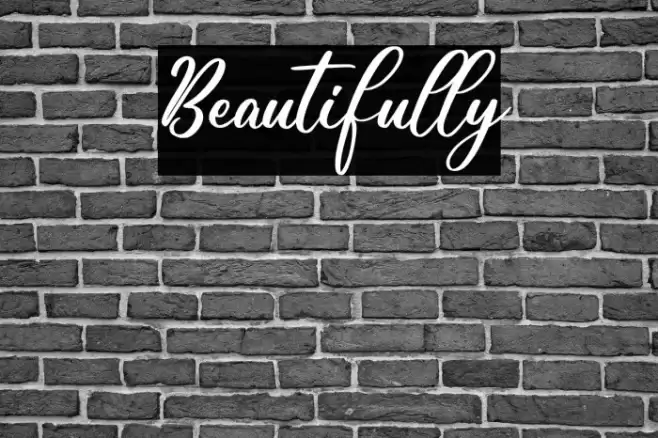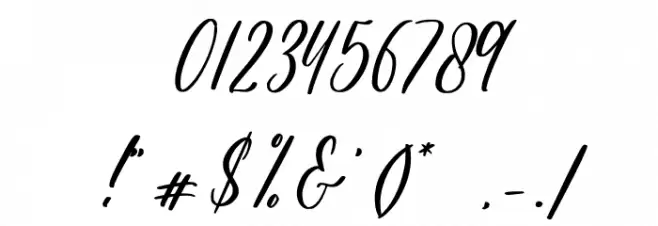
Beautifully Font
This font exudes elegance and fluidity, characterized by its cursive, handwritten style. The letters are interconnected with smooth, flowing strokes that create a sense of movement and grace. The uppercase letters are bold and prominent, while the lowercase letters maintain a consistent flow, enhancing readability. Numbers and special characters are designed to complement the overall aesthetic, maintaining the same fluidity and style. The font's artistic flair makes it suitable for creative and expressive projects.
A cursive, handwritten font with elegant, flowing strokes from Uncategorized fonts.
- Proposed Projects: Ideal for wedding invitations, greeting cards, branding, and logo design where a personal and artistic touch is desired.
- Use Case: Logos, Invitations, Artistic projects